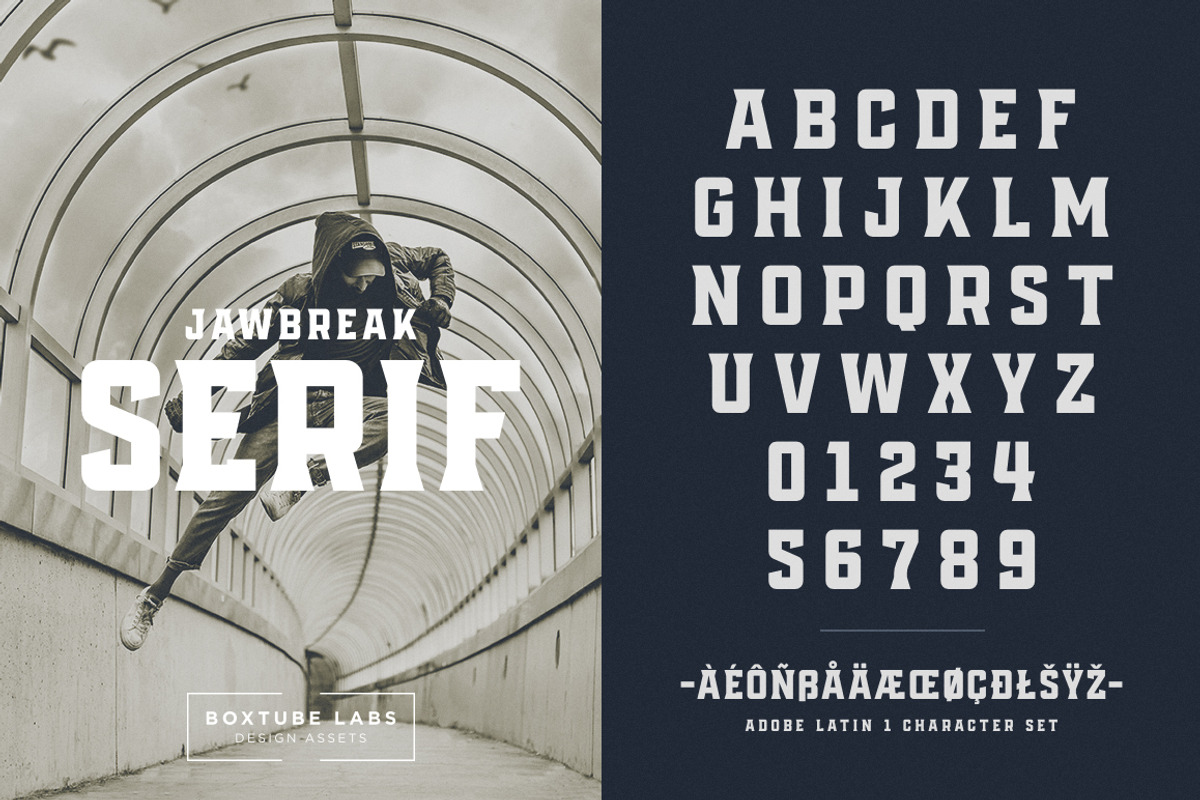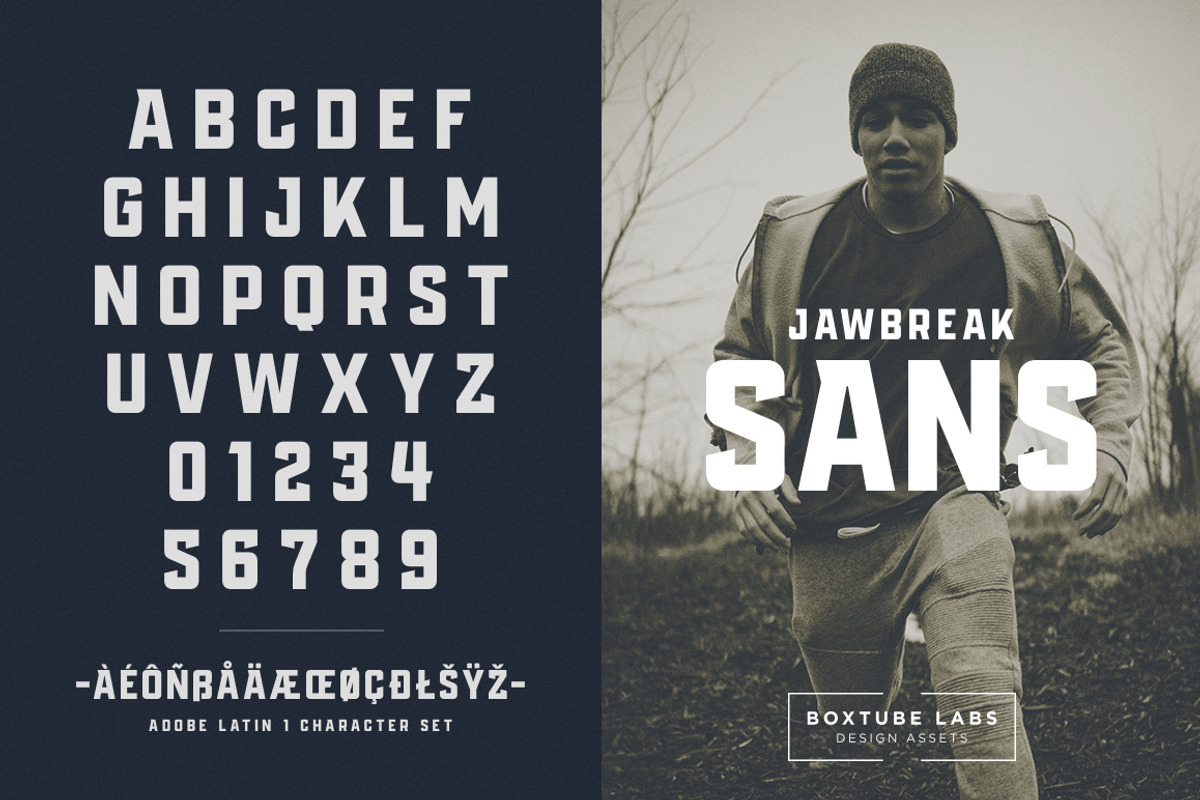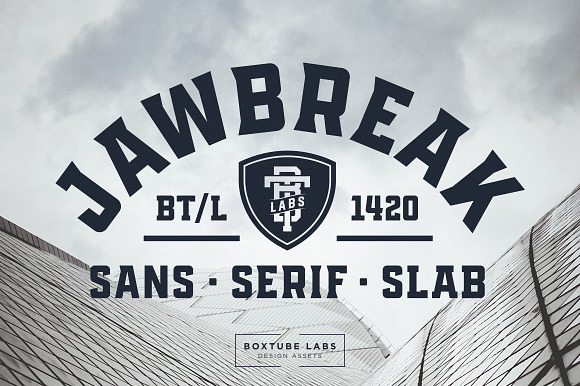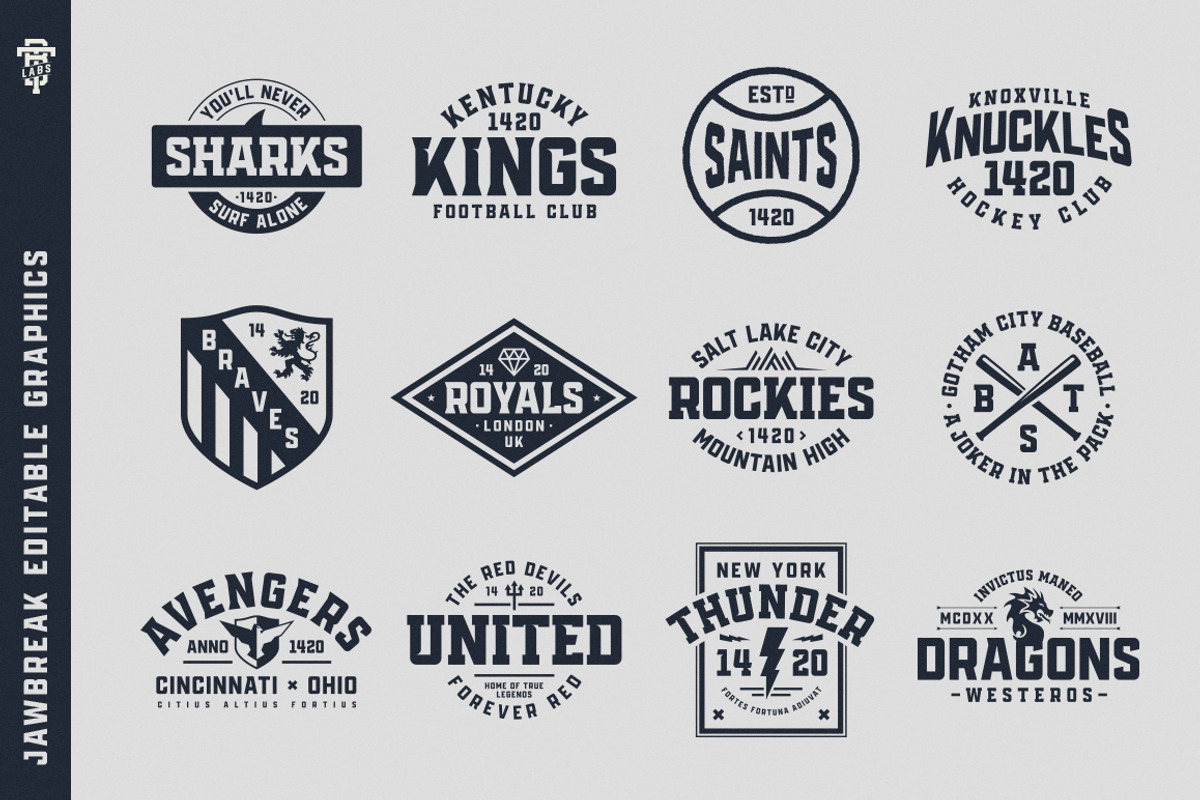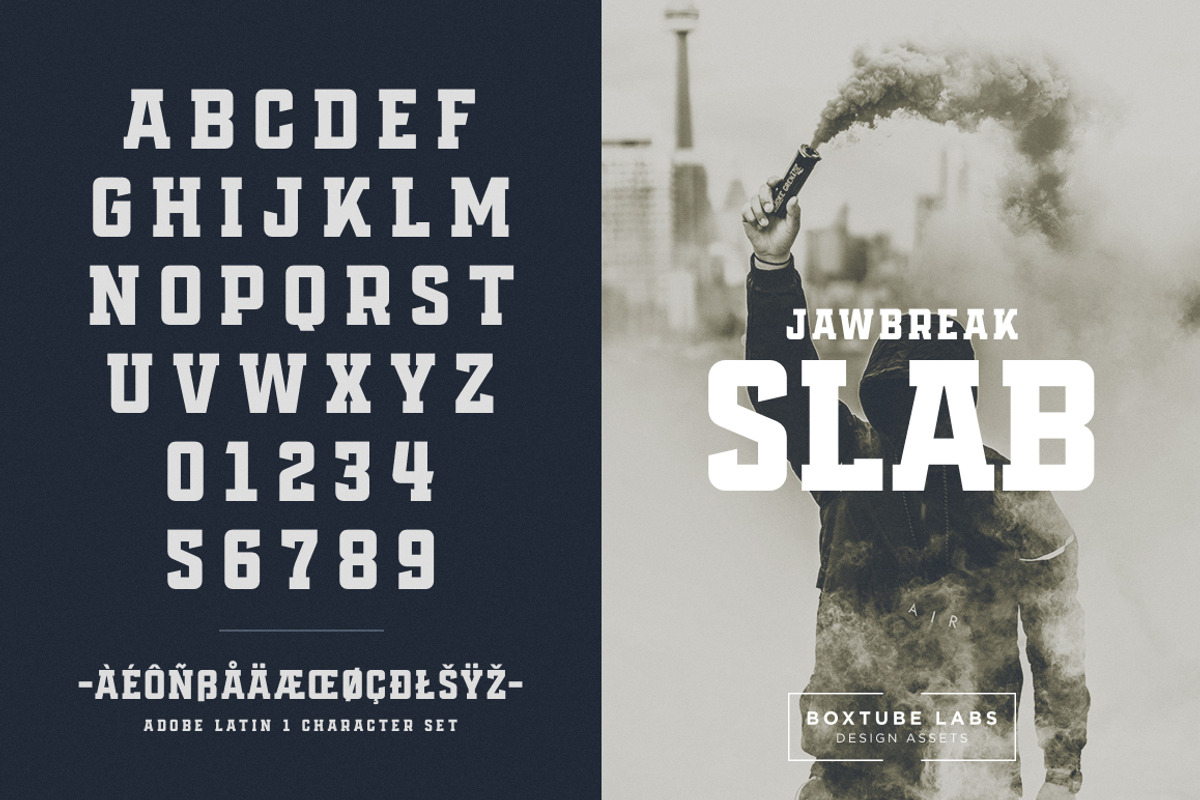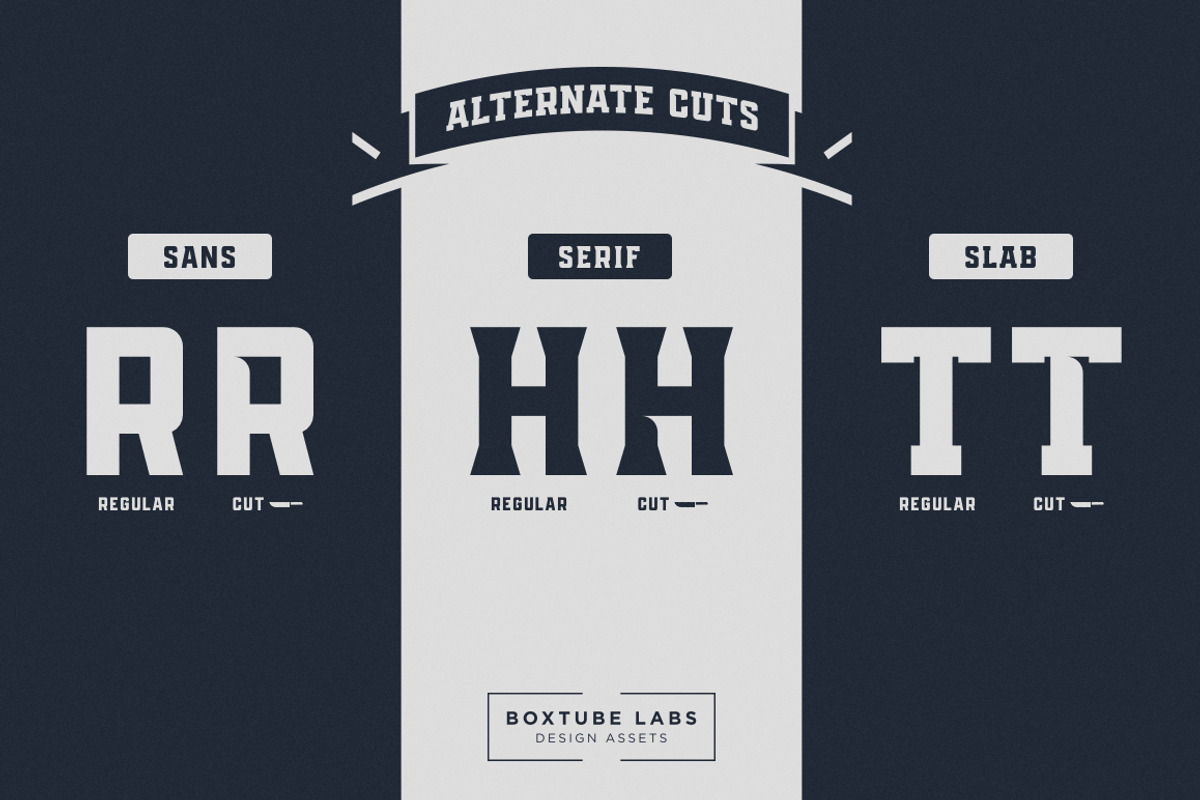
Jawbreak - Display Font
Introducing JAWBREAK - a modern sports font with classic roots.
Jawbreak's three distinct styles and alternate cuts makes it incredibly versatile and perfect for logotypes, sports branding, posters, apparel design, magazine headlines, labels and so much more.
Jawbreak features a full Adobe Latin 1 character set, with support for most western languages including: Afrikaants, Basque, Breton, Catalan, Danish, Dutch, English, Finnish, French, Gaelic, German, Icelandic, Indonesian, Irish, Italian, Norwegian, Portuguese, Sami, Spanish, Swahili and Swedish.